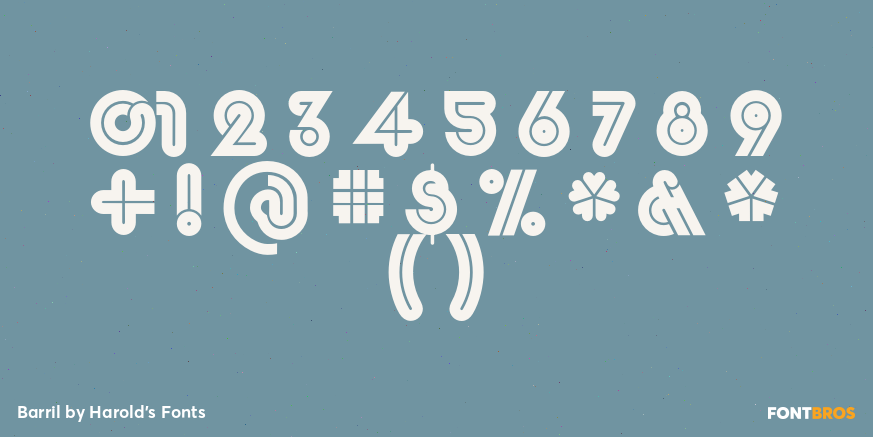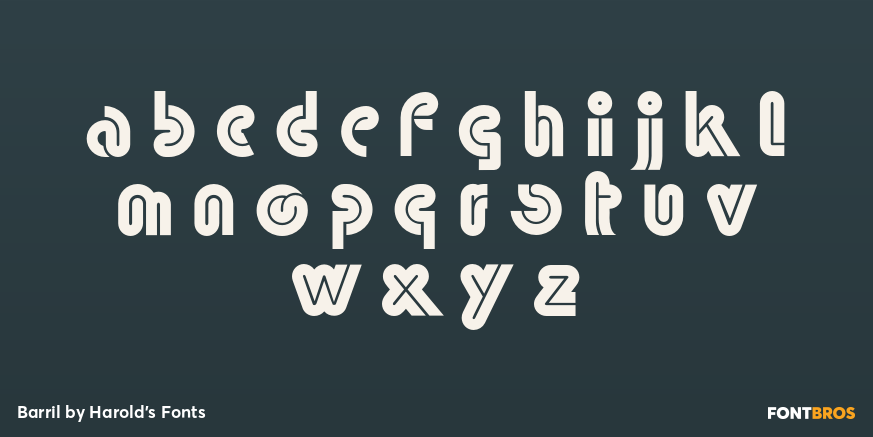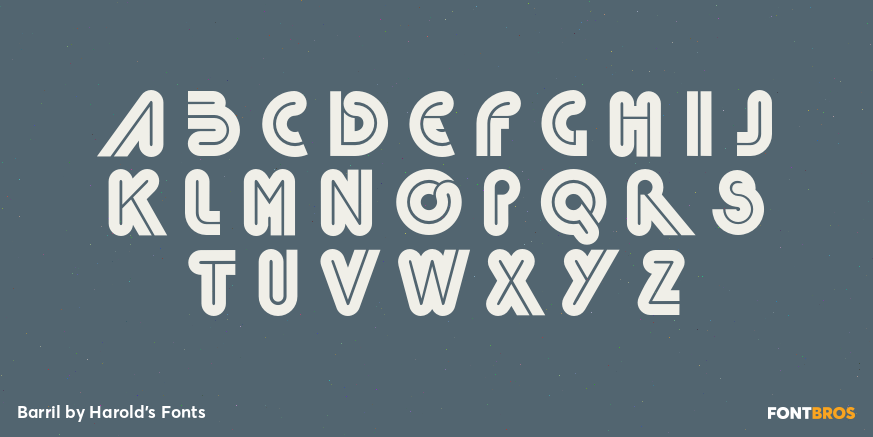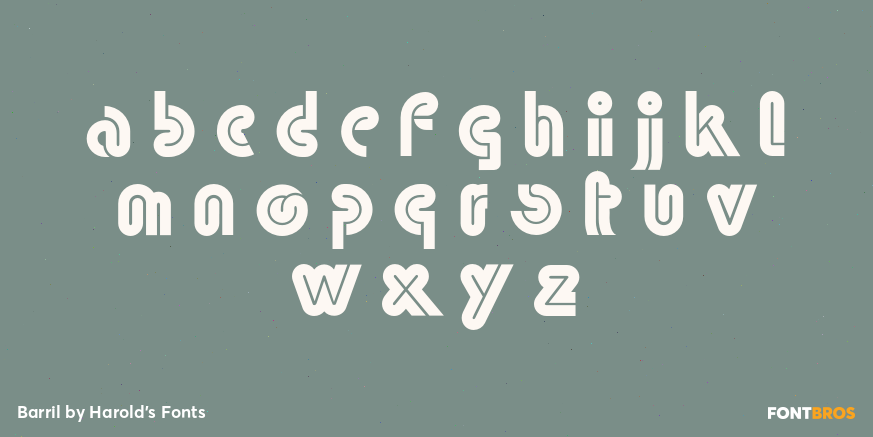
Barril
Font Family by Harold's Fonts
Barril is my digital interpretation of a "lost" analog font called Barrio. I started with a scan from a dry-transfer catalog. It was produced originally by Neufville, but that's all the information I have. Totally 70s! For my own amusement, I made a second inline version called Barril Doble. Great for layering. Each font includes caps, punctuation, numbers, and international characters.